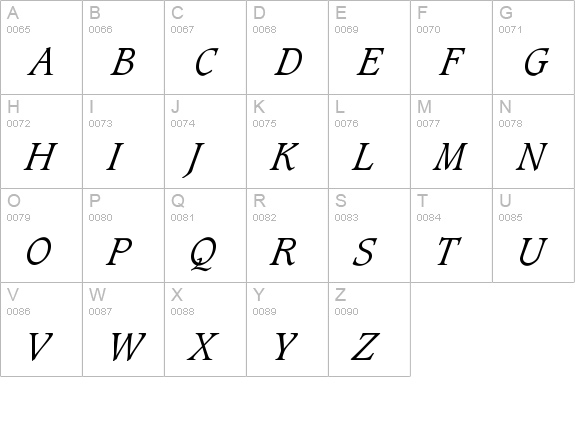
CaxtonEF-LightItalic Font Details
CaxtonEF-LightItalic is a sophisticated and elegant font that exudes a sense of modernity and style. Its sleek, slanted characters convey a sense of movement and fluidity, making it perfect for projects that require a touch of sophistication. This font is ideal for use in branding, advertising, invitations, and any design where a touch of class is required. The light italic style adds a subtle flair to any text, making it stand out without overpowering the overall design. One of the best things about CaxtonEF-LightItalic is that it is completely free to download at FontsMarket.com. This means that you can access this beautiful font without any cost, making it a great option for designers on a budget. Whether you are working on a professional project or a personal design, CaxtonEF-LightItalic is sure to elevate your work with its chic and refined aesthetic. Download it today and add a touch of elegance to your next design project.